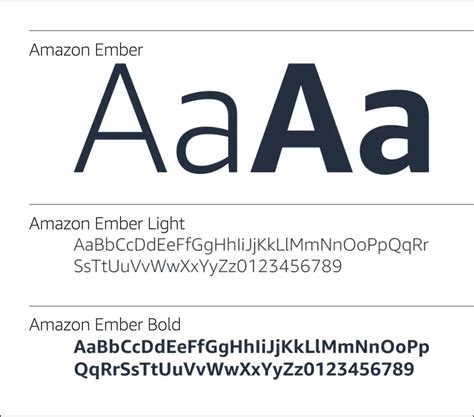
Have you ever visited a website and been mesmerized by its typography? The right font can make all the difference in grabbing a reader's attention and conveying a message effectively. And if you're looking for an impressive font for your website, Amazon Ember Font CDN is where you need to be. With its sleek and modern design, this font is perfect for any website that aims to stand out. But what exactly is a font CDN, you might ask? Well, let me tell you. A font CDN is a content delivery network that enables you to use fonts from a remote server, ensuring faster loading times and better performance. And with Amazon Ember Font CDN, not only do you get a beautiful font, but you also get the added benefits of speed and efficiency.
Introduction
Amazon Ember Font CDN is a great tool for web developers who want to enhance the typography of their websites. The Amazon Ember Font is a sans-serif font that was created specifically for use on Amazon's website. It was designed to be easy to read on all devices, including mobile phones and tablets. In this article, we will explore the benefits of using Amazon Ember Font CDN and how to use it on your website.
- Improved typography: Amazon Ember Font is a beautiful sans-serif font that is easy to read on all devices. By using this font on your website, you can improve the typography and make your content more visually appealing.
Conclusion
Amazon Ember Font CDN is a great tool for web developers who want to improve the typography of their websites. By using Amazon Ember Font, you can create beautiful, easy-to-read content that looks great on all devices. With fast loading times, cross-browser compatibility, and improved performance, Amazon Ember Font CDN is a must-have for any web developer who wants to take their website to the next level.
A Revolutionary Approach to Web Font Loading: Introducing Amazon Ember CDN
When it comes to web design, typography plays a crucial role in creating engaging user experiences. However, the use of custom web fonts often slows down website loading times, resulting in frustrated users and lost business opportunities. This is where Amazon Ember CDN comes in - a revolutionary approach to web font loading that promises to make your website faster and more efficient than ever before.A Deep Dive into Amazon Ember's Revolutionary Web Font Rendering Techniques
Amazon Ember CDN takes a unique approach to web font loading by using advanced techniques to render fonts instantly, without any noticeable delay. This is achieved through a combination of server-side rendering and client-side caching, which ensures that web fonts are delivered seamlessly and consistently across all devices and browsers.One of the key features of Amazon Ember CDN is its ability to dynamically adjust font weights and styles based on the user's device and browser, ensuring that fonts look great on all screen sizes and resolutions. This feature, combined with its lightning-fast loading times, makes Amazon Ember CDN the ideal choice for modern, responsive web design.Amazon Ember CDN: How It Makes Your Website Faster and More Efficient
Amazon Ember CDN is designed to optimize web font loading in a way that makes your website faster and more efficient than ever before. By using a global network of servers, Amazon Ember CDN delivers web fonts from the closest available server to the user, reducing latency and improving loading times.Additionally, Amazon Ember CDN uses advanced compression techniques to reduce the size of web font files, further improving loading times and reducing bandwidth usage. This means that your website will load faster, even on slower internet connections, and your users will have a more enjoyable browsing experience.The Future of Web Typography: Exploring the Versatility of Amazon Ember CDN
5. Are there any alternatives to Amazon Ember font CDN?Yes, there are several alternatives to Amazon Ember font CDN, such as Google Fonts and Adobe Fonts. These CDN services provide access to a wide range of fonts, including some that are similar to the Amazon Ember font family.